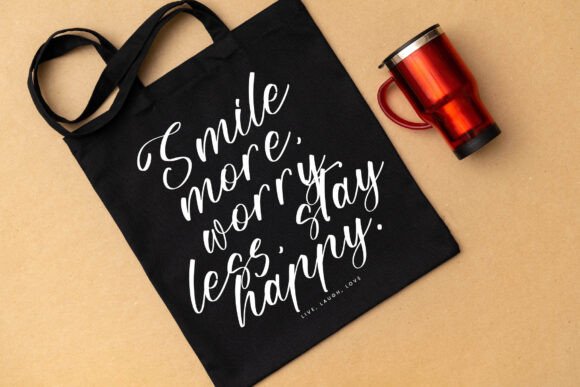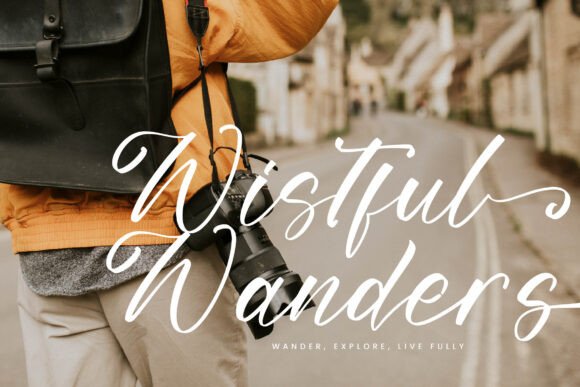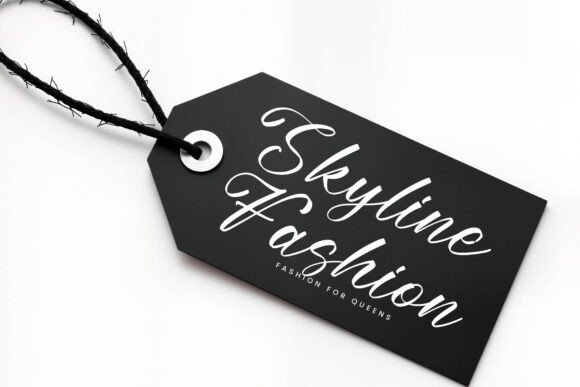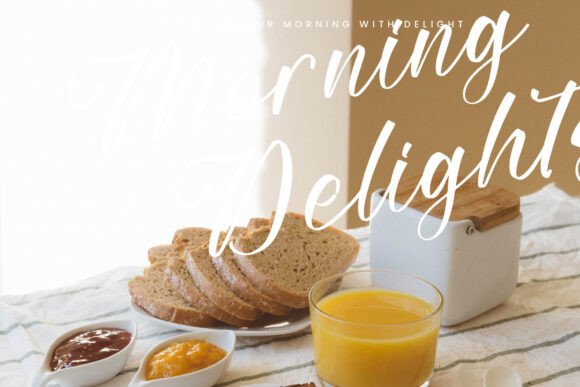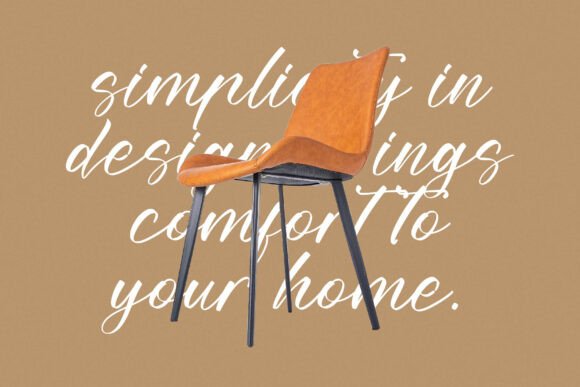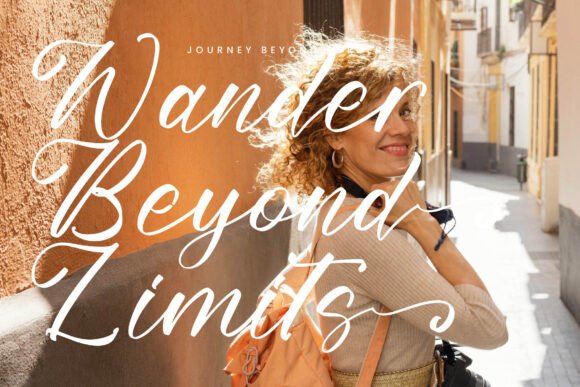
Unlock the Secrets of Elegance with Brighton Chanels Font
You know that moment when you’re brainstorming ideas for a project and suddenly, a spark of inspiration hits you? For designers, that spark often comes in the form of a beautiful, elegant font that sets the tone for the entire design. For many, that spark has come in the form of the Brighton Chanels Font, a stunning handwritten script font that exudes luxury and sophistication.
Brighton Chanels Font is more than just a pretty face – it’s a versatile tool that can elevate any project from logos and branding to homewares designs, product packaging, and beyond. Whether you’re working on a high-end product launch or a special event, this font is sure to add a touch of premium taste to your designs. As a designer, having access to a high-quality font like Brighton Chanels Font can make all the difference in creating stunning visuals that leave a lasting impression.
Brighton Channel Font Key Features
- Unique Characteristics: The Brighton Channel Font features a unique, modern design with a mix of geometric and script elements, giving it a distinctive look.
Brighton Chanels Font Review
Overall, I have mixed feelings about the Brighton Chanels Font. It’s a beautifully designed font that can elevate your design work, but it also has some limitations that might make it less suitable for certain projects.
- Unique and stylish aesthetic: The Brighton Chanels Font has a distinct, luxurious feel that’s perfect for high-end branding and design projects.
- Beautiful script letters: The font’s script letters are incredibly elegant and add a touch of sophistication to any design.
- Good for titles and headings: The font is particularly well-suited for titles and headings, where its stylish aesthetic can really shine.
- Limited legibility at smaller sizes: The font can be difficult to read at smaller sizes, which might make it less suitable for body text or small print.
- Not ideal for large blocks of text: The font’s luxurious feel can make it feel overwhelming when used in large blocks of text, which might detract from the design’s overall impact.
- Limited language support: The font may not support certain languages or character sets, which could limit its usability in global design projects.
While the Brighton Chanels Font has its limitations, it’s still a beautiful and stylish font that can add a touch of luxury to your design work. With careful use and consideration of its limitations, it can be a valuable addition to your design toolkit.
Tips for Getting the Most Out of Brighton Chanels Font
To get the most out of Brighton Chanels font, use it for:
- Designing elegant and sophisticated typography.
- Creating high-end branding materials.
- Adding a touch of luxury to your designs.
Brighton Chanels font is commonly used for:
- Wedding